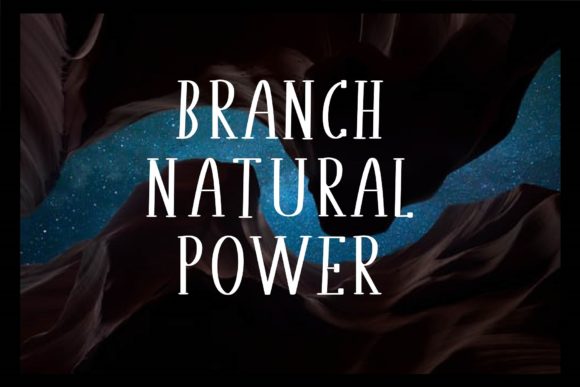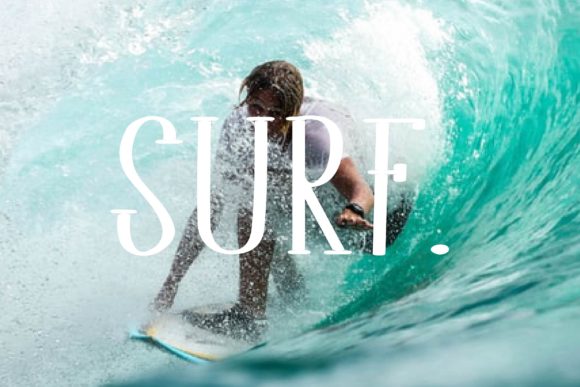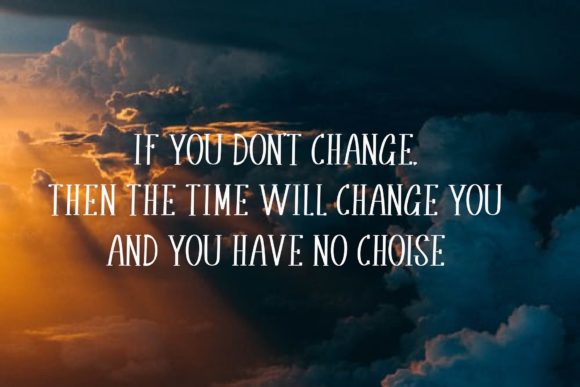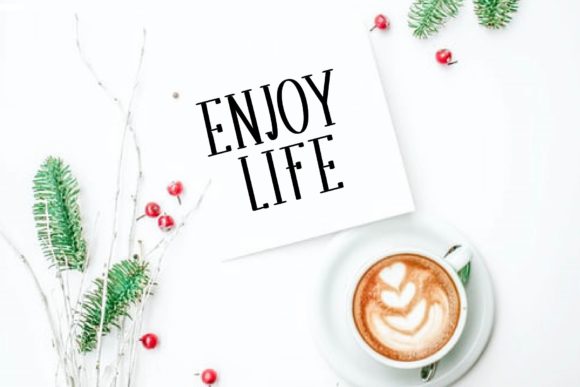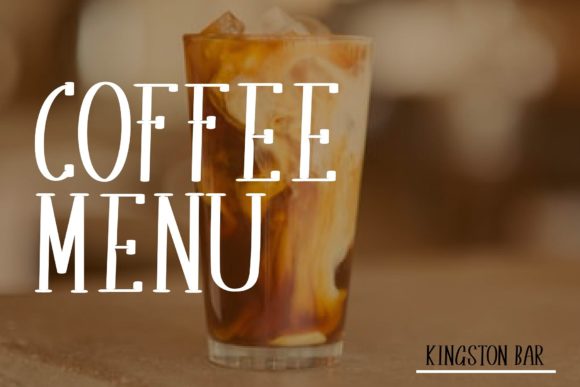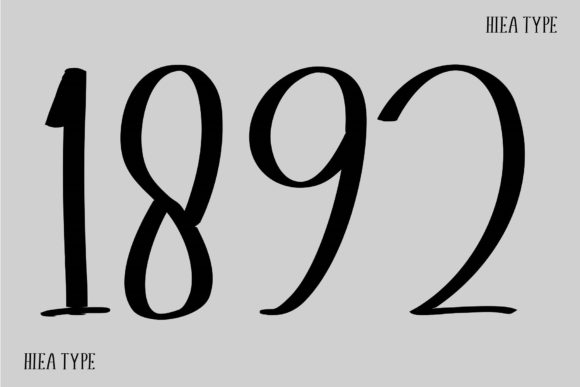
Introduction to Hiea Font
Do you remember that moment when you finally nailed a design concept, but the font just didn’t do it justice? You spent hours tweaking the layout, adjusting the colors, and perfecting the composition, only to have the font fall flat. That’s where the Hiea Font comes in – a tall and stylish serif font that can elevate your creative project from good to great.
As a designer, you’re always on the lookout for high-quality design resources that can take your work to the next level. The Hiea Font is an incredible asset to any font library, offering a unique blend of sophistication and elegance that’s perfect for a wide range of creative projects. Whether you’re working on a logo, a brochure, or a website, this font is sure to make a statement.
Key Features of Hiea Font
- Unique characteristics include a modern, minimalist aesthetic and a wide range of customizable options.
Honest Review: Hiea Font
As a designer, I’m always on the lookout for high quality design resources that can elevate my creative projects. Recently, I stumbled upon the Hiea Font, and I’m excited to share my honest review.
- ✨ The Hiea Font has a unique, modern aesthetic that’s perfect for contemporary designs.
- ⚠️ The font may not be suitable for projects requiring a more traditional or classic look.
- ⚠️ Some characters may not be as detailed as I’d like, which can affect overall typography quality.
Overall, the Hiea Font is a solid addition to any designer’s toolkit. While it may not be perfect, its unique style and versatility make it a valuable design resource for creative projects.
Getting the Most Out of Hiea Font
Common Use Cases for Hiea Font
The Hiea Font is ideal for creative projects, such as logos, branding materials, and marketing campaigns. Its unique design and high-quality features make it a versatile design resource for any project.